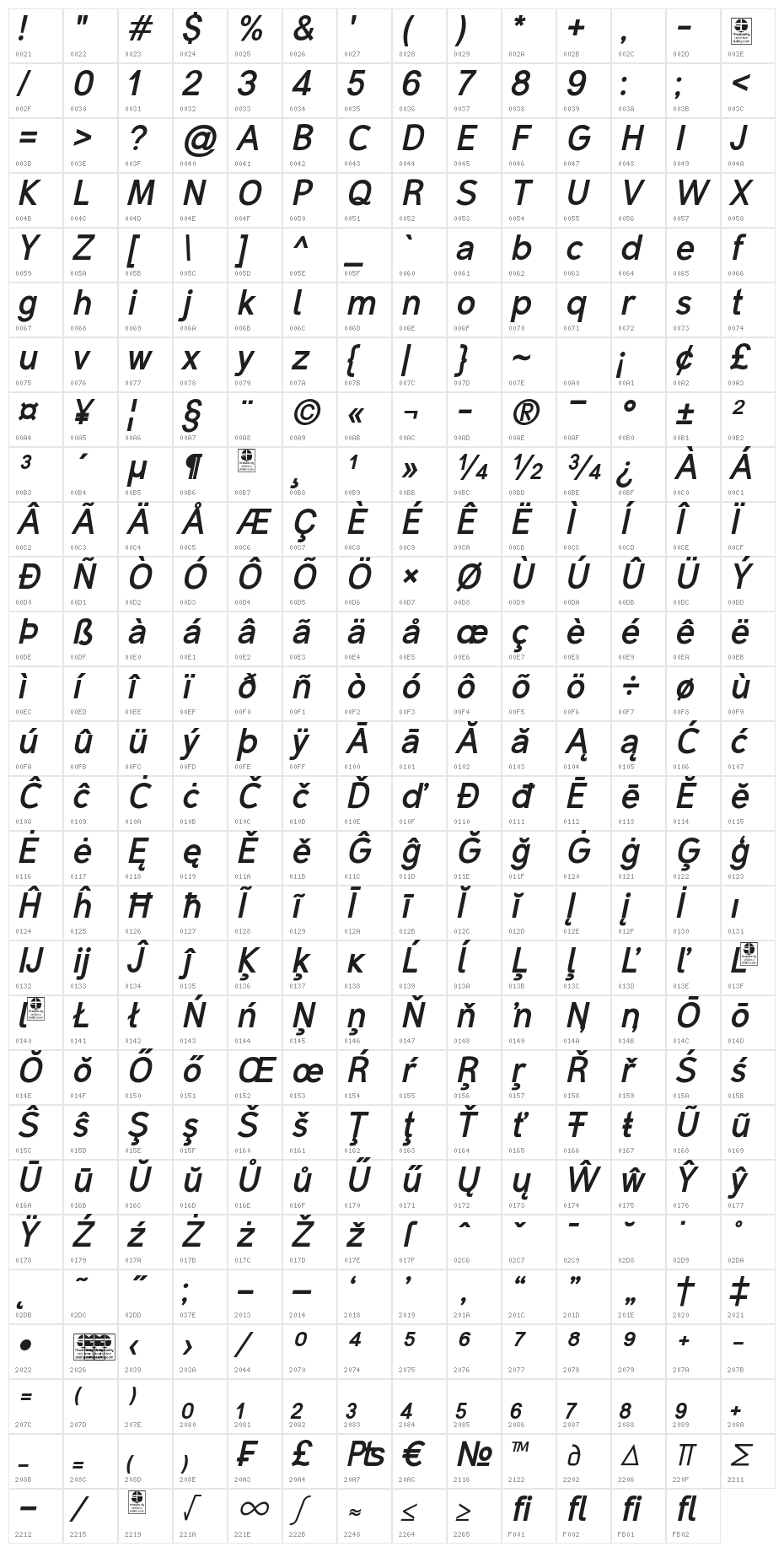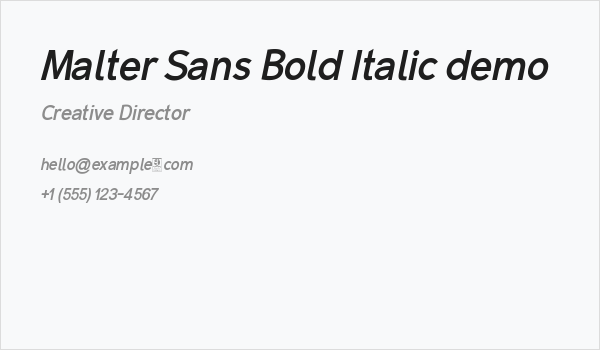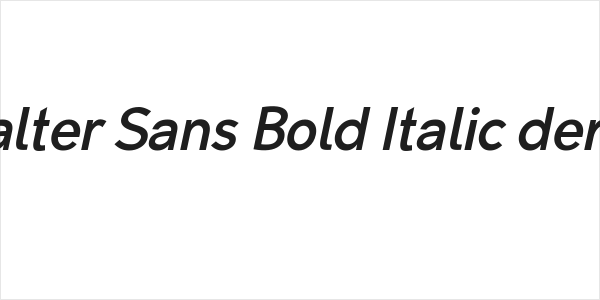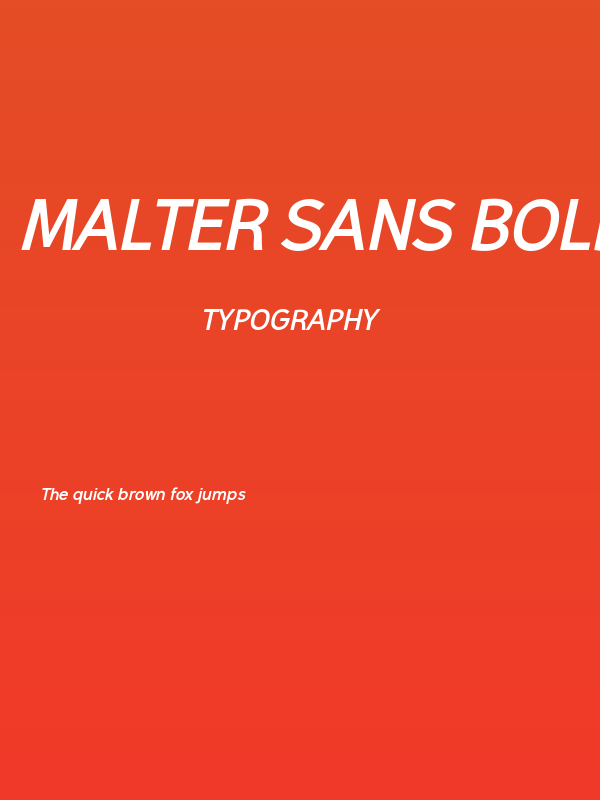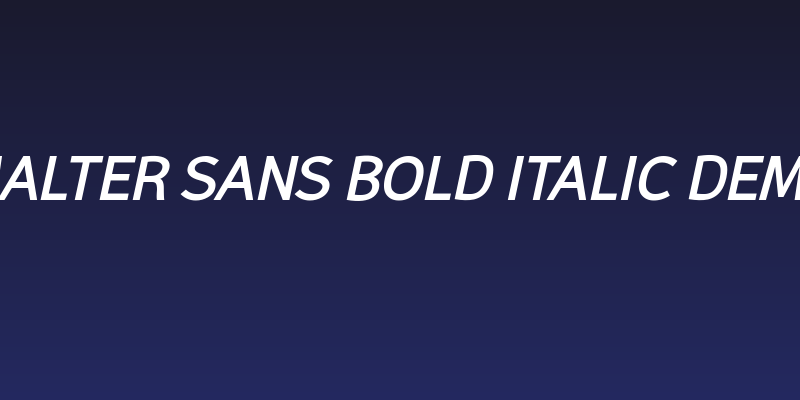
Malter Sans Bold Italic demo Font
Malter Sans Bold Italic demo Description
This font exhibits a modern and sleek sans-serif style with a bold and italicized appearance. The characters are slightly slanted, giving a dynamic and forward-moving impression. The strokes are consistent and smooth, contributing to a clean and professional look. The uppercase and lowercase letters maintain a uniform width, enhancing readability. The numerals are well-proportioned and align seamlessly with the alphabetic characters. Special characters are clearly defined, adding versatility for various uses. Overall, this font combines elegance with a contemporary edge, making it suitable for a wide range of applications.
| Proposed Projects | Ideal for branding, advertising, and editorial design projects where a modern and professional look is desired. |